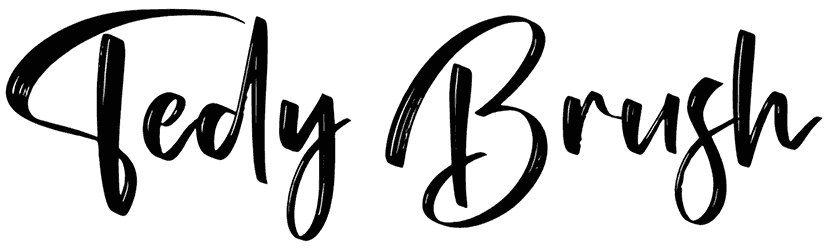
Tedy Brush Font
Tedy Brush is a very special script font that pushes a feeling of delicacy, softness, vivacity, or professionalism in your creative ideas and helps them look more appealing to the audience.
The significant point of this brush font is that it comes in two distinctive styles and lets you add a bit of variety to your work. In addition, it can be insanely fit for greeting cards, menus, brand descriptions, headlines, or social media posts.